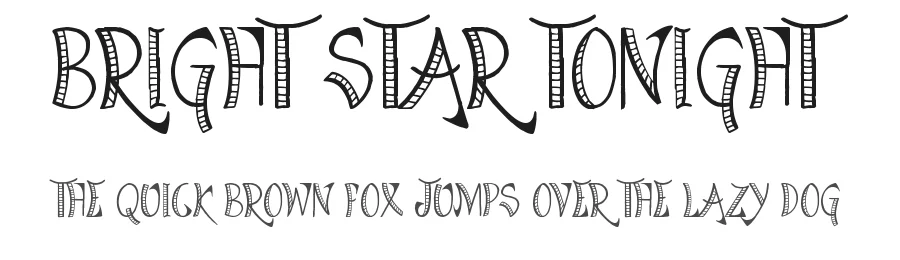
About Shankster Font
Shankster Font is a decorative font that shines as a display or heading face. Pair it with a clean sans-serif or serif font for body text β the contrast creates a clear hierarchy while the two styles stay balanced and easy to read.
Shankster Font
by Dav studio